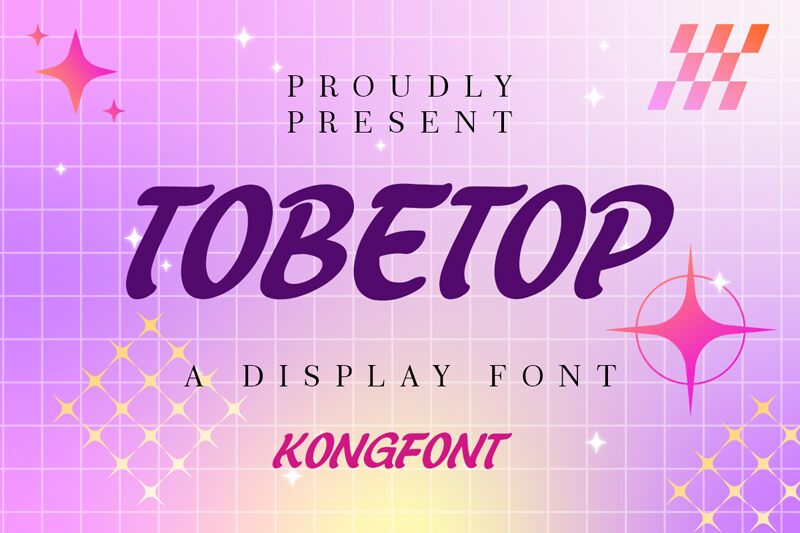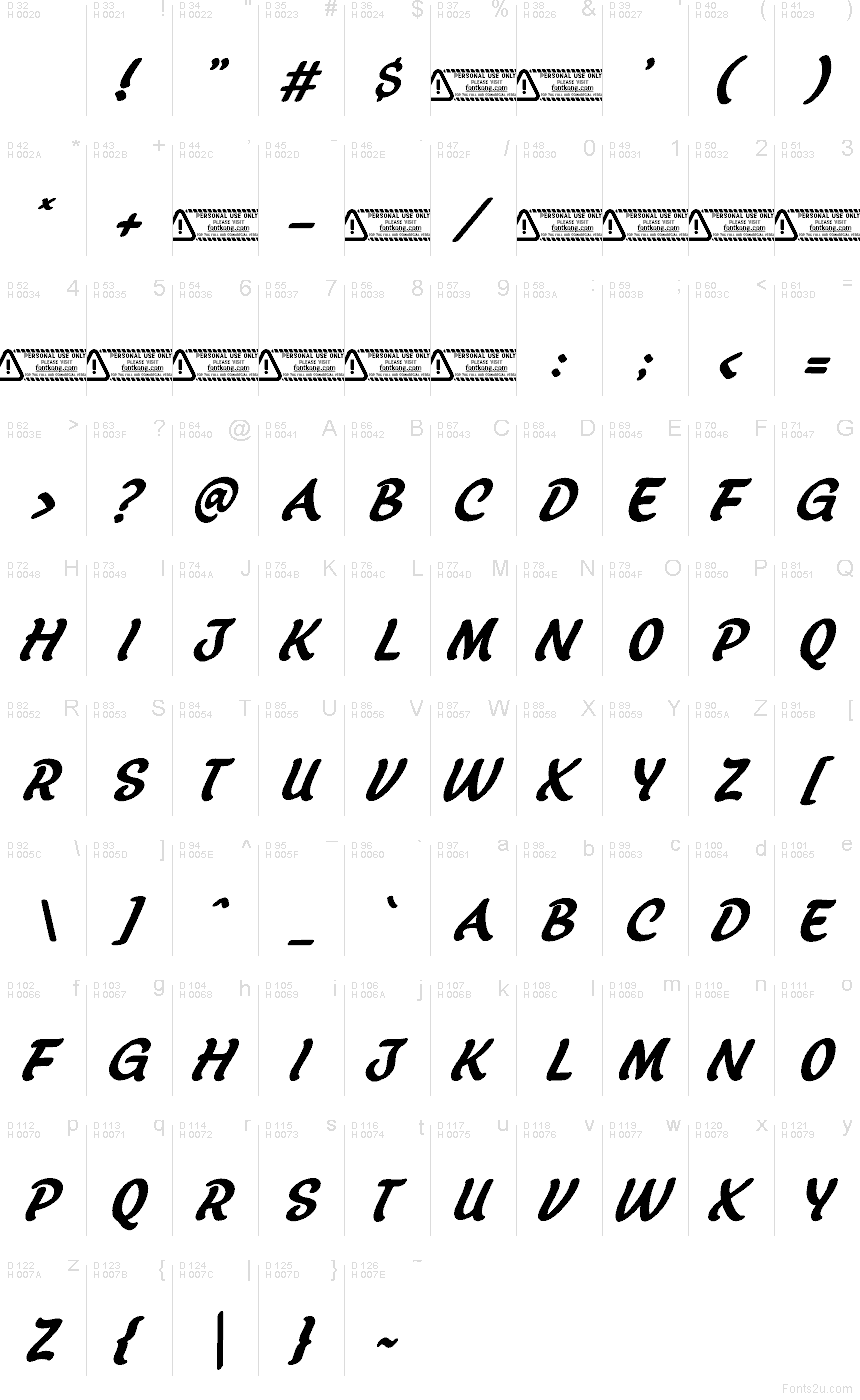
Tobetop font by Kong Font is a free brush font that throws its weight into bold, fast-moving typography. Thick, inky strokes sweep forward with a strong slant, giving every word the feel of a quick, confident signature. The letters hug each other with tight spacing, so headlines feel punchy and solid, like a logo stamped in wet paint.
Using Tobetop, you get a natural fit for sports branding, streetwear logos, concert posters, energy drink packaging, bold YouTube thumbnails, and social media promos that need attitude. This free font shines at larger sizes, where its textured curves and momentum really show. For balance, pair Tobetop with a clean geometric sans in smaller text to keep layouts readable while the brush script steals the spotlight.